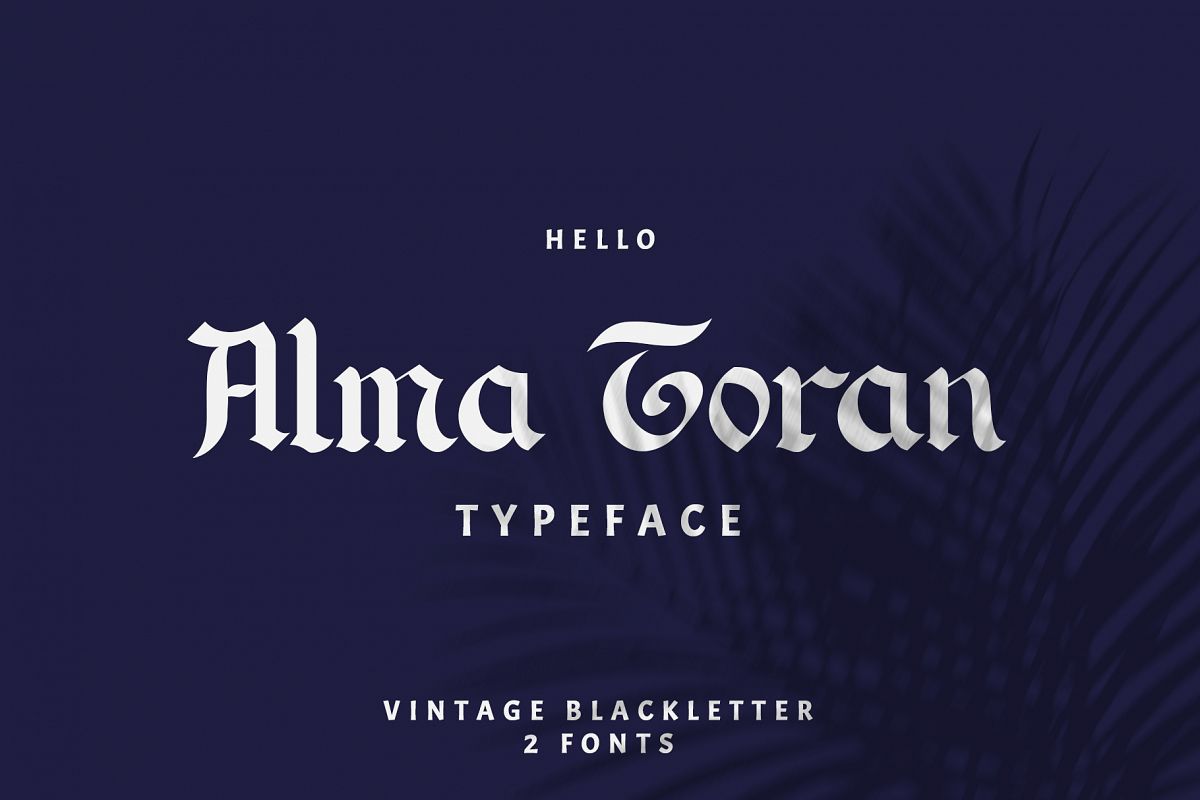
Alma Toran Typeface
Alma Toran is a typeface inspired by several typography books. Unique, elegant and vintage-style fonts suitable for design needs such as logos, posters, layouts, cards, etc. typeface consists of 2 font styles, namely plain and outline, there are alternative characters and multi languages in fonts.Featured :
• multi language support
• 2 Font : Regular & Outline